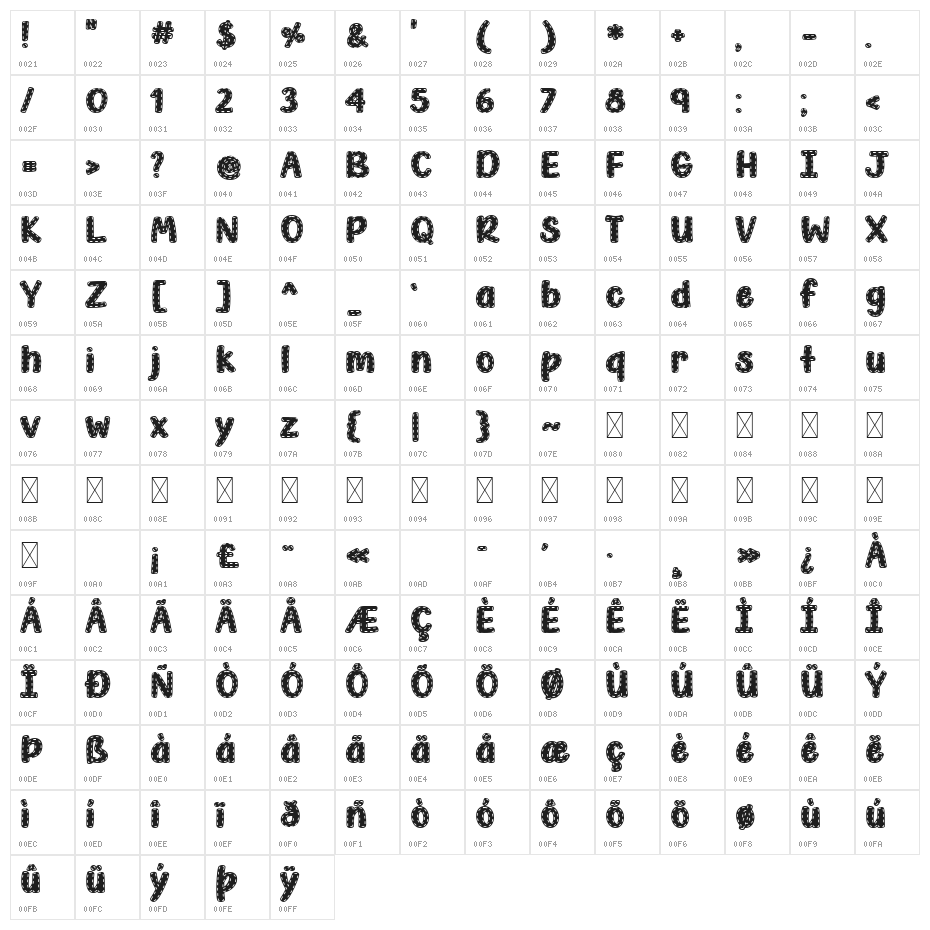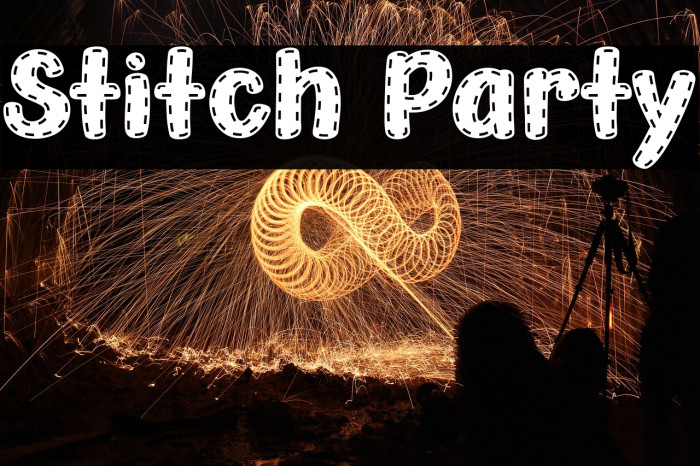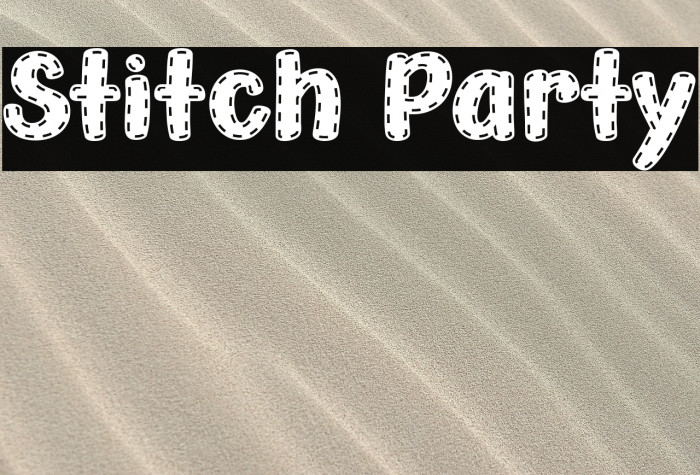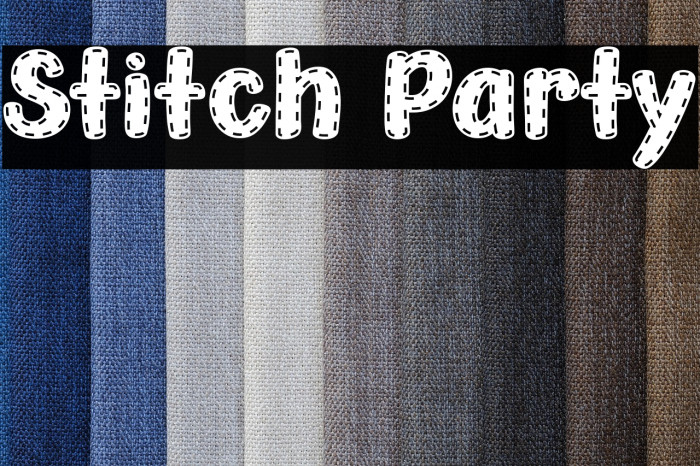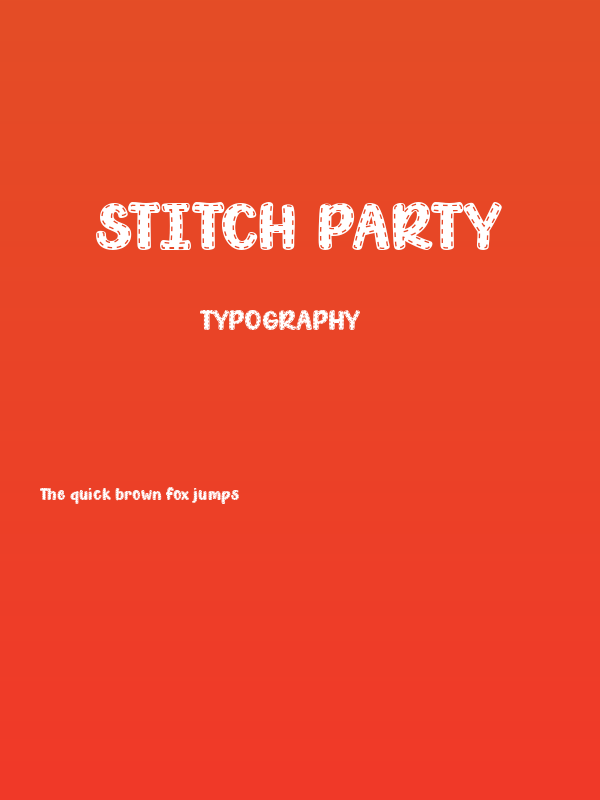
Stitch Party Font
Stitch Party Description
This playful and decorative font features a unique stitched pattern that runs along the edges of each character, giving it a handcrafted and whimsical appearance. The letters are bold and rounded, with a consistent thickness that maintains readability while adding a touch of fun. The font includes both uppercase and lowercase letters, numbers, and a variety of special characters, making it versatile for different design needs. Its distinct style is reminiscent of fabric or textile designs, making it ideal for projects that require a crafty or homemade feel.
| Proposed Projects | Ideal for children's book covers, craft projects, DIY-themed invitations, and playful branding materials. |